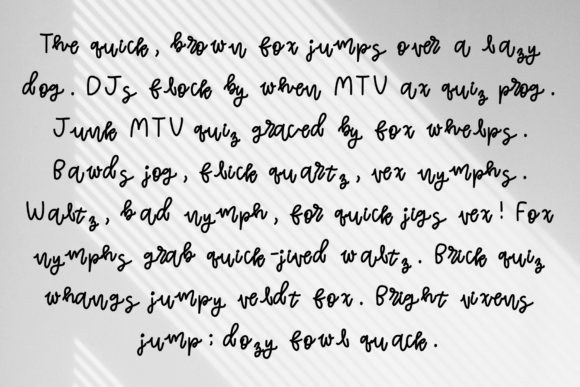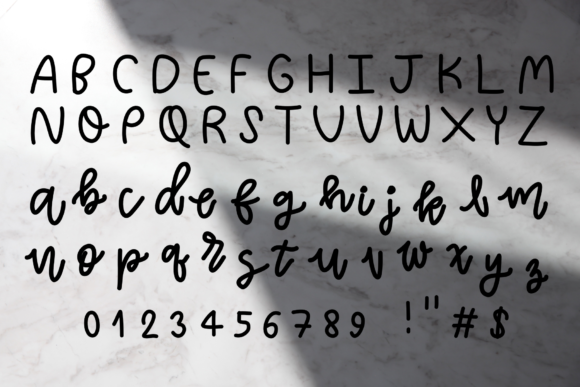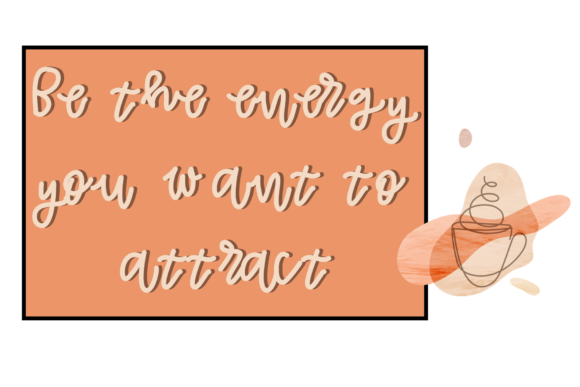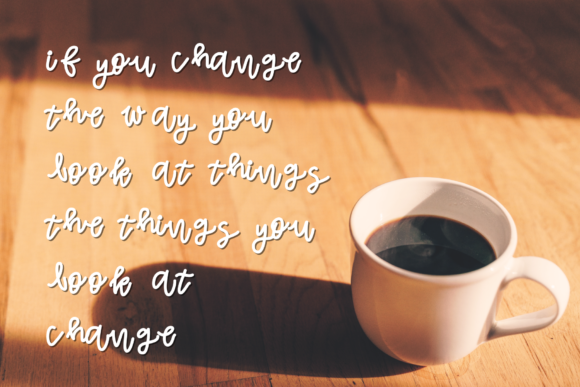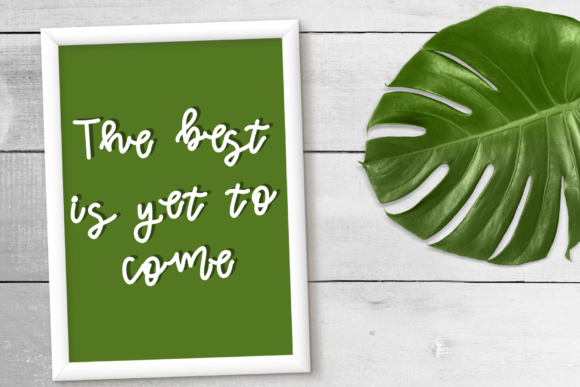
Introducing Chunn Font: Adding a Touch of Whimsy to Your Designs
In the world of typography, fonts play a crucial role in conveying the tone and personality of a design. If you’re looking for a font that embodies fun, quirkiness, and authenticity, look no further than Chunn Font. This enchanting handwritten font is designed to turn any creative idea into a true standout, making it perfect for designers and crafters alike.
The Charm of Chunn Font
Chunn Font is a unique and captivating typeface that is sure to add a touch of whimsy to any design project. Its handwritten style gives it a personal and organic feel, making it perfect for a wide range of applications, from crafting and DIY projects to digital designs and branding materials. With Chunn Font, you can add a dash of personality to your work and make it truly unforgettable.
Key Features of Chunn Font
- Handwritten style: Chunn Font boasts a beautiful, handwritten style that gives it a personal and authentic feel.
- Unique look: The font’s unique look is sure to make your designs stand out from the crowd and leave a lasting impression.
- Quirky and fun: Chunn Font embodies a sense of fun and quirkiness, making it perfect for designers and crafters who want to add a touch of whimsy to their work.
- Authentic feel: The font’s handwritten style gives it an authentic feel that is sure to resonate with audiences.
Uses for Chunn Font
Chunn Font is a versatile typeface that can be used in a wide range of applications, including:
- Crafting projects: Add a personal touch to your crafting projects, such as scrapbooking, card making, and journaling.
- Digital designs: Use Chunn Font to add a touch of whimsy to your digital designs, such as social media graphics, blog posts, and email newsletters.
- Branding materials: Make your branding materials, such as business cards, brochures, and flyers, truly unforgettable with Chunn Font.
- DIY projects: Add a personal touch to your DIY projects, such as handmade signs, posters, and artwork.
Tips for Using Chunn Font
Here are a few tips for getting the most out of Chunn Font:
- Experiment with different colors: Chunn Font looks great in a variety of colors, so don’t be afraid to experiment and find the perfect hue for your design.
- Mix and match with other fonts: Chunn Font pairs well with a variety of other fonts, so feel free to mix and match to create a unique look.
- Use it sparingly: While Chunn Font is a beautiful typeface, it can be overwhelming if used too much. Use it sparingly to add a touch of whimsy to your design.
Chunn Font is a unique and captivating typeface that is sure to add a touch of whimsy to any design project. With its handwritten style, quirky and fun personality, and authentic feel, it’s perfect for designers and crafters alike. Whether you’re working on a crafting project, digital design, or branding materials, Chunn Font is sure to make your work truly unforgettable. So why not give it a try and see the magic for yourself?